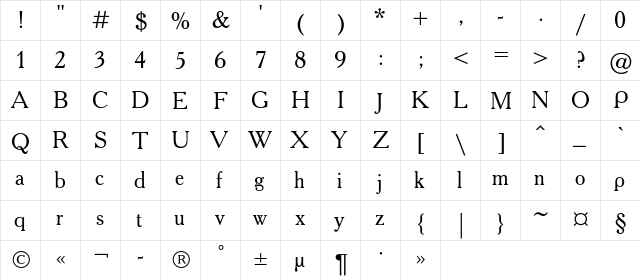
AcademyC Regular
Design Context for AcademyC Typeface
AcademyC takes a measured approach to typography — its balanced proportions and neutral character make it a reliable workhorse for both digital and print work.
Pro Tip: Use AcademyC in both headline and body roles to test its range before committing to a single application.